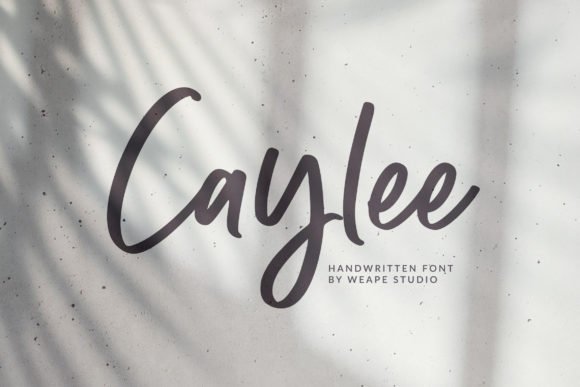
The Perfect Match for Your Design
There’s something special about stumbling upon the perfect font for a project – it’s like finding a missing puzzle piece that brings everything together. You know, that moment when you finally click ‘download’ and can’t wait to see how it’ll elevate your design.
Caylee Script Font is that magic moment waiting to happen. This charming handwritten font is designed to add a touch of contemporary charm to any design project, making it a standout in the crowd. With its sweet and cool vibe, Caylee Script Font is the perfect companion for designers looking to create unique and eye-catching designs.
Whether you’re working on a brand identity, social media graphics, or a special occasion invitation, Caylee Script Font is sure to bring your vision to life. Its versatility and charm make it an invaluable asset for designers, and we can’t wait for you to fall in love with it!
Caylee Script Font Key Features
- Font Style: A beautiful, elegant script font ideal for creating a warm and inviting atmosphere in designs.
- Font Size: Designed to be used in a range of sizes, from 12pt to 72pt, making it versatile for various design applications.
- Unique Characteristics: Features a unique, handwritten feel with subtle flourishes and imperfections, adding a touch of personality to designs.
Caylee Script Font Review
Overall, I think Caylee Script Font is a lovely addition to any designer’s toolkit. ✨ Its elegant, handwritten feel makes it perfect for creating beautiful, eye-catching designs. From invitations to blog posts, this font is sure to add a touch of sophistication and charm. ✨
Here are some of the things I like about Caylee Script Font:
- It’s extremely versatile and can be used in a wide range of design contexts.
- The font is highly customizable, allowing you to adjust the spacing, size, and color to suit your design needs.
- It’s a great choice for creating elegant, high-end designs that exude luxury and sophistication.
- The font may not be suitable for body text, as it can be difficult to read in smaller sizes.
- It’s not as versatile in terms of font weights, with only a few options available.
- Some users may find the font too ornate or busy for certain design projects.
Overall, I think Caylee Script Font is a solid choice for designers looking to add some elegance and sophistication to their designs. While it may have some limitations, its versatility and customization options make it a valuable addition to any toolkit.
The Caylee Script font is ideal for creative projects that require a touch of elegance and sophistication. Some common use cases include:
Personalized gift tags and cards
Branding and marketing materials
Remember to use the font in moderation, as it can be quite ornate and overwhelming if overused.
Alex Brush is a elegant script font that is perfect for use in high-end branding, invitations, and other creative projects. It’s ideal for creating a sophisticated and luxurious feel, and is often used in conjunction with serif fonts. Compared to Caylee Script Font, Alex Brush is more refined and has a more classic feel.